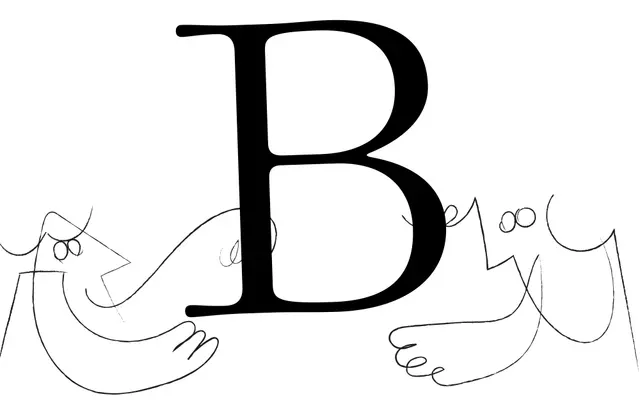
Baryton
Baryton specimen from Coppers and Brasses
A two-style display serif drawn in homage to Frank Bartuska's Century Bartuska, with inflated serifs and rounded corners suited to large-scale composition.
Designed by Étienne Aubert Bonn and My-Lan Thuong at Coppers and Brasses, Baryton takes its cue from the Photo-Lettering Inc. phototypesetting era, where tight spacing and exaggerated forms became viable at display sizes. The family comprises a roman and a cursive italic, both characterised by swollen serifs, rounded corners and subtle stroke-weight variations that reward close inspection. Intended strictly for large sizes, it carries an elegance unusual for the display register without abandoning its playful, period-aware character.
A display serif with exaggerated, inflated serifs drawn for large-scale use, inspired by the phototypesetting-era Century Bartuska. Its swollen bracketing and unusual proportions place it firmly in the display category rather than text serif.